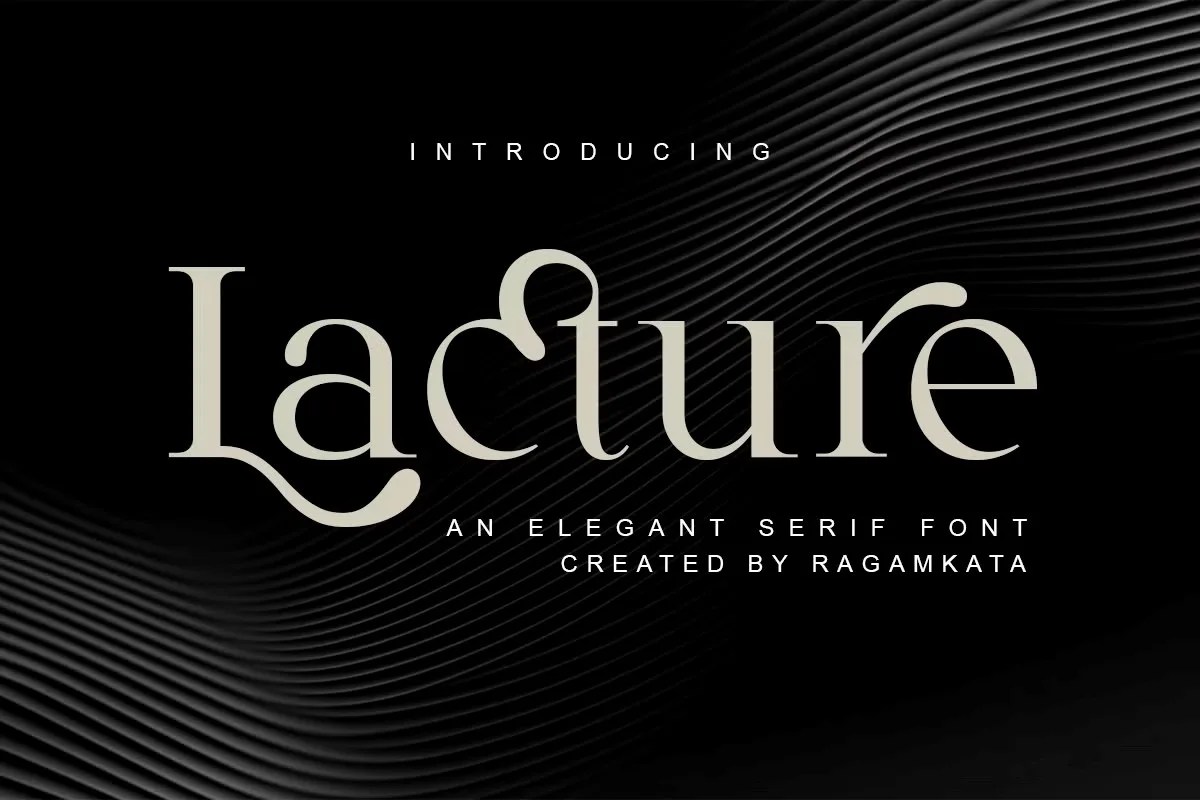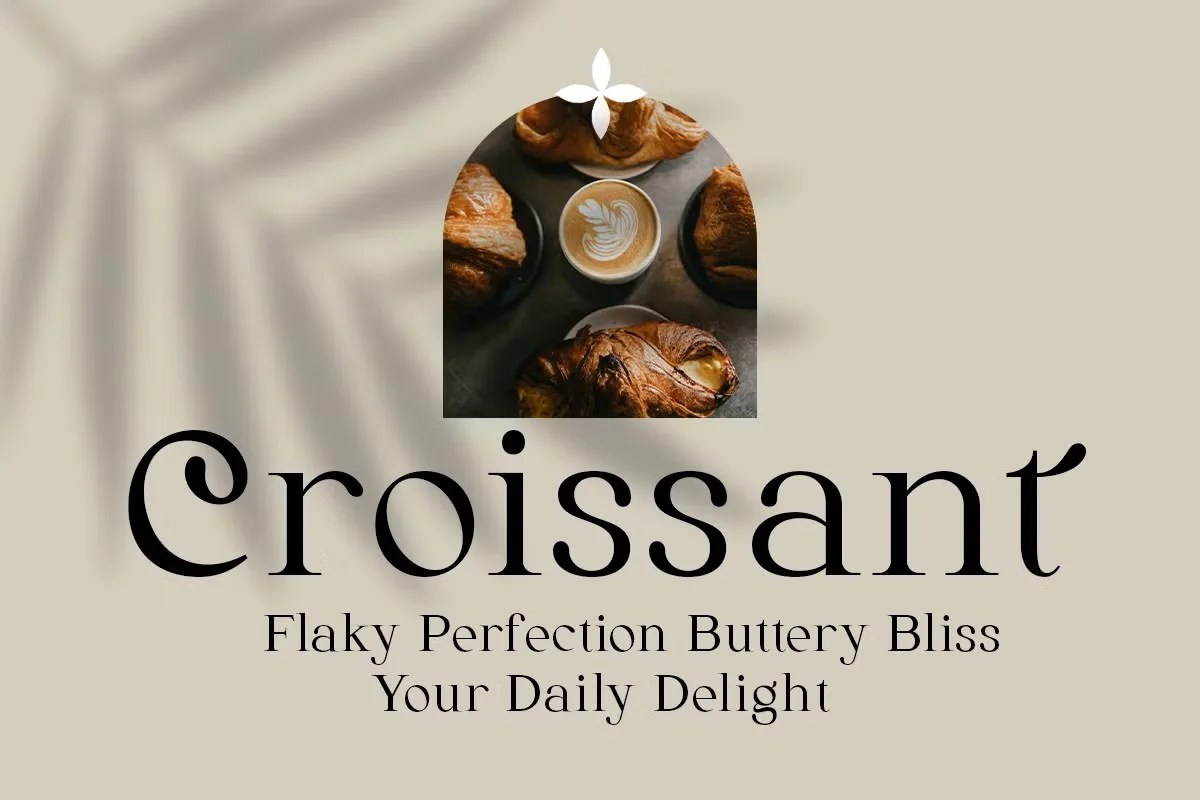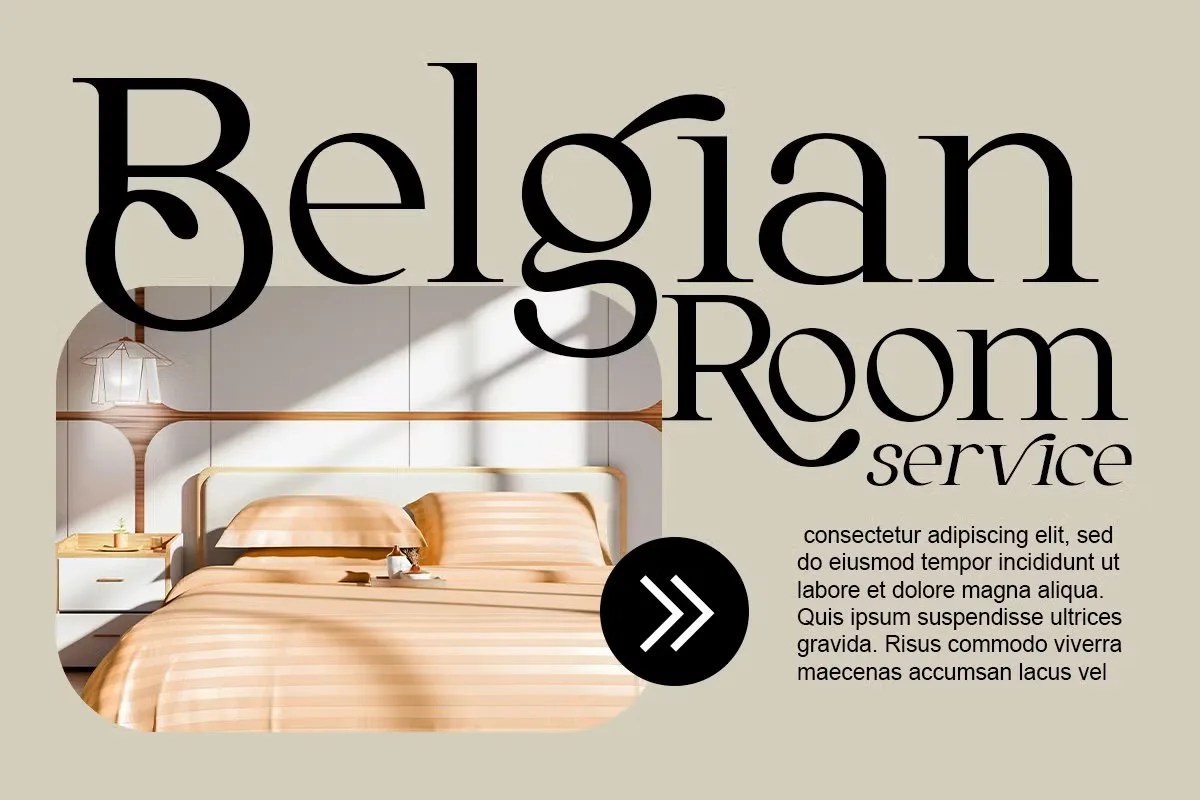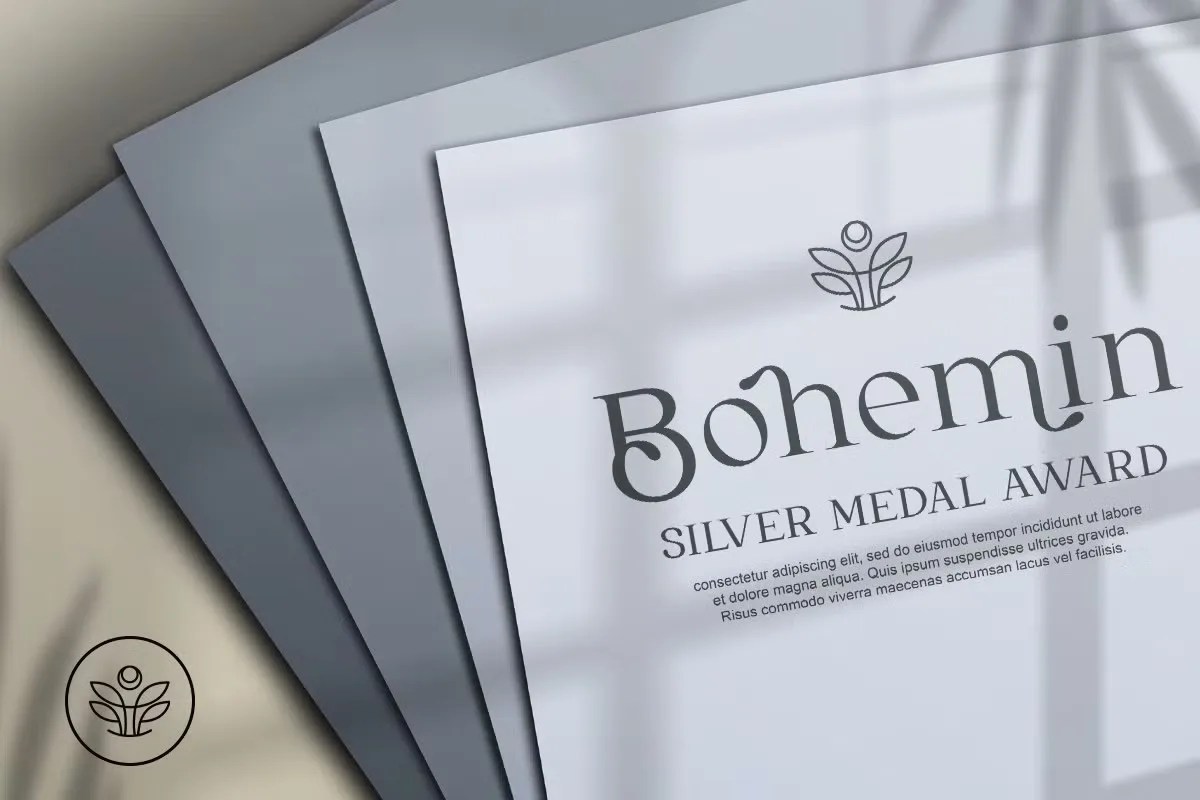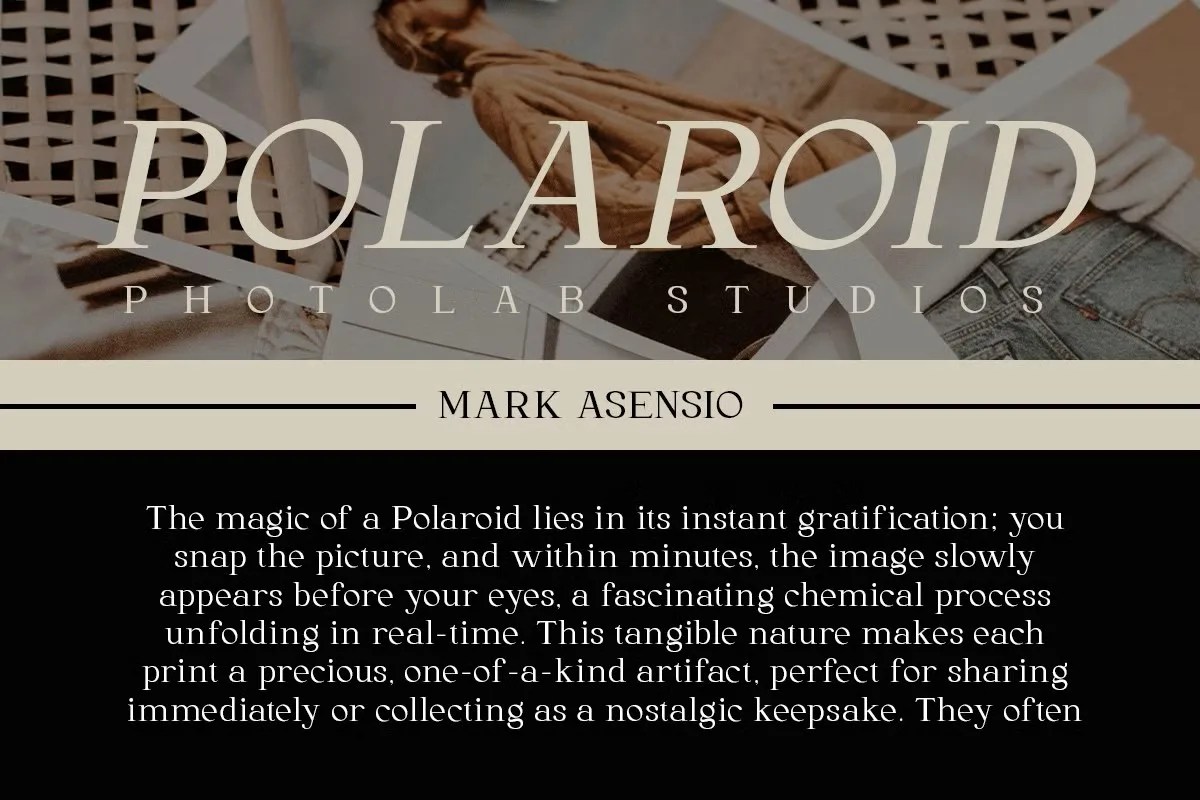
Lacture by RagamKata, a classic serif font that blends timeless tradition with modern readability. RagamKata designed this typeface for clarity and elegance. It provides a strong, reliable foundation for text-heavy projects. Lacture doesn’t rely on flashy trends. Instead, it offers a sophisticated, academic character that makes content feel authoritative and trustworthy. It’s the perfect choice for designers who need a dependable font that communicates intelligence and poise.
While Lacture excels as a text font, its elegance also shines in larger sizes. You can confidently use this classic serif font for headlines and subheadings that require a touch of class. Imagine it used for an academic journal, a historical non-fiction book cover, or the main body text for a sophisticated blog. It also works beautifully for branding projects that want to convey a sense of heritage, reliability, and intelligence. Think of a law firm, a university, or a cultural institution.
• Elegant and classic serif style
• Designed for high readability in body text
• Excellent for academic, editorial, and branding
• Conveys authority and sophistication
Lacture